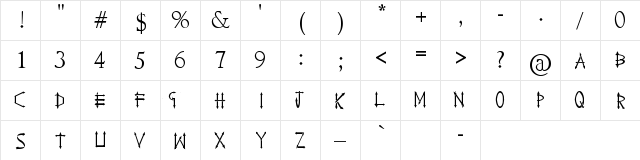
Teer Regular
Design Context for Teer Typeface
Teer is a composed and adaptable typeface that performs quietly and consistently across a wide range of design contexts.